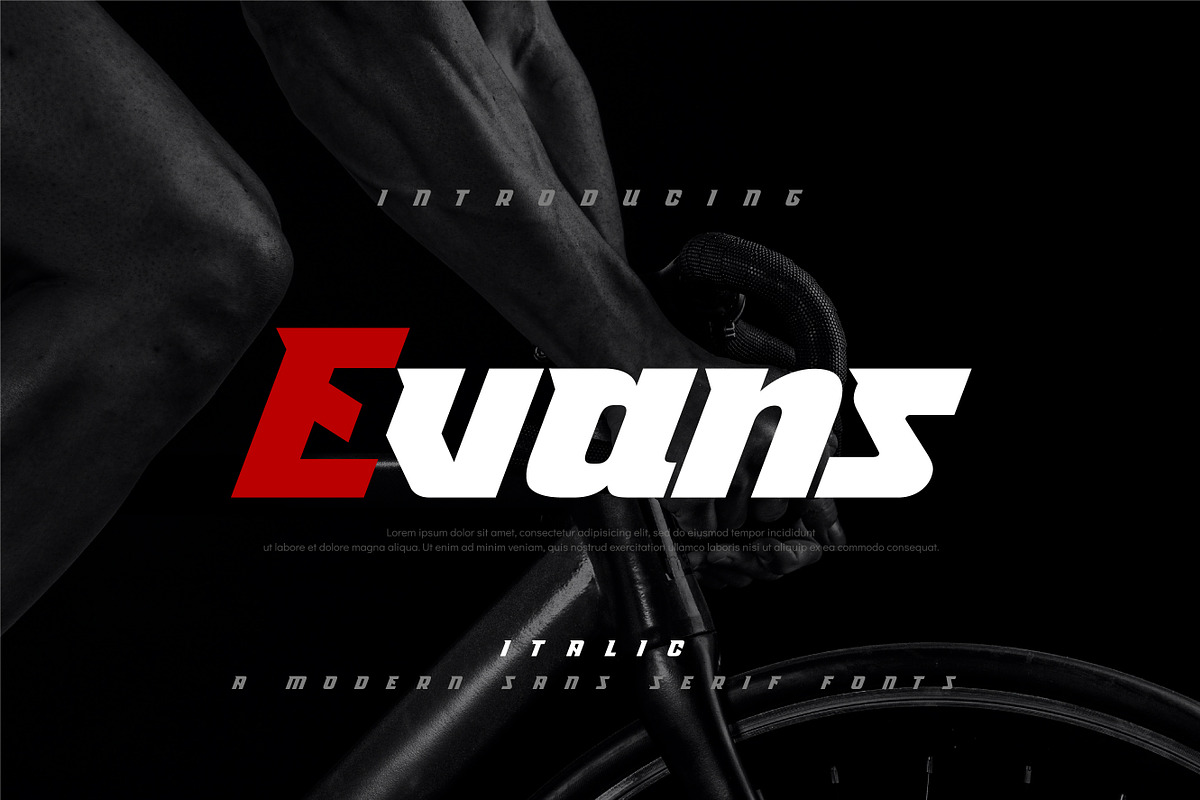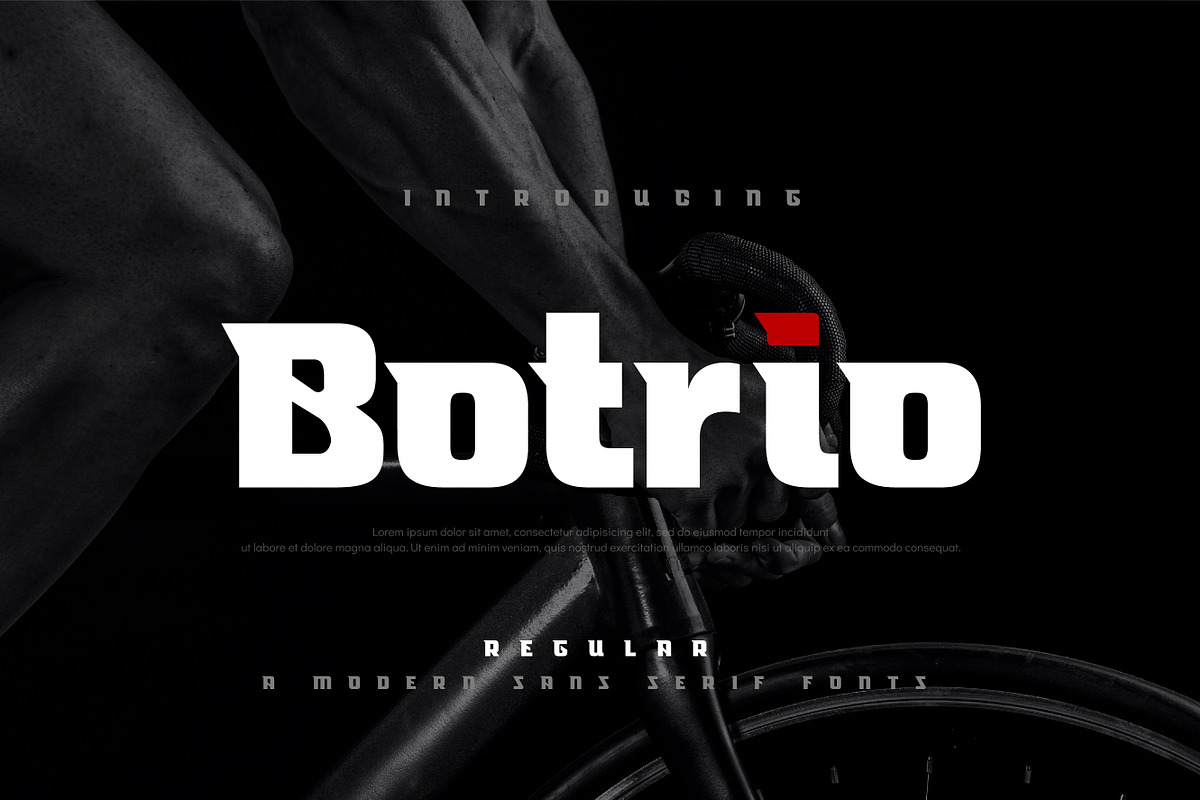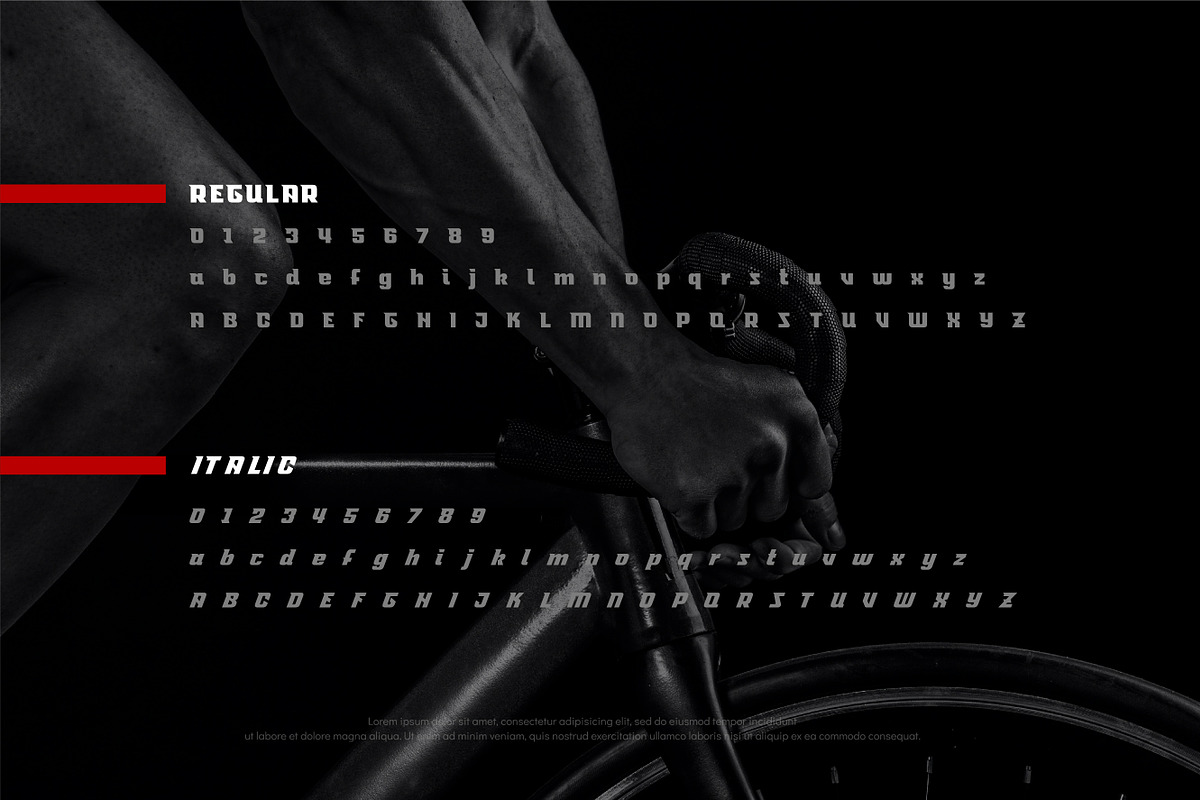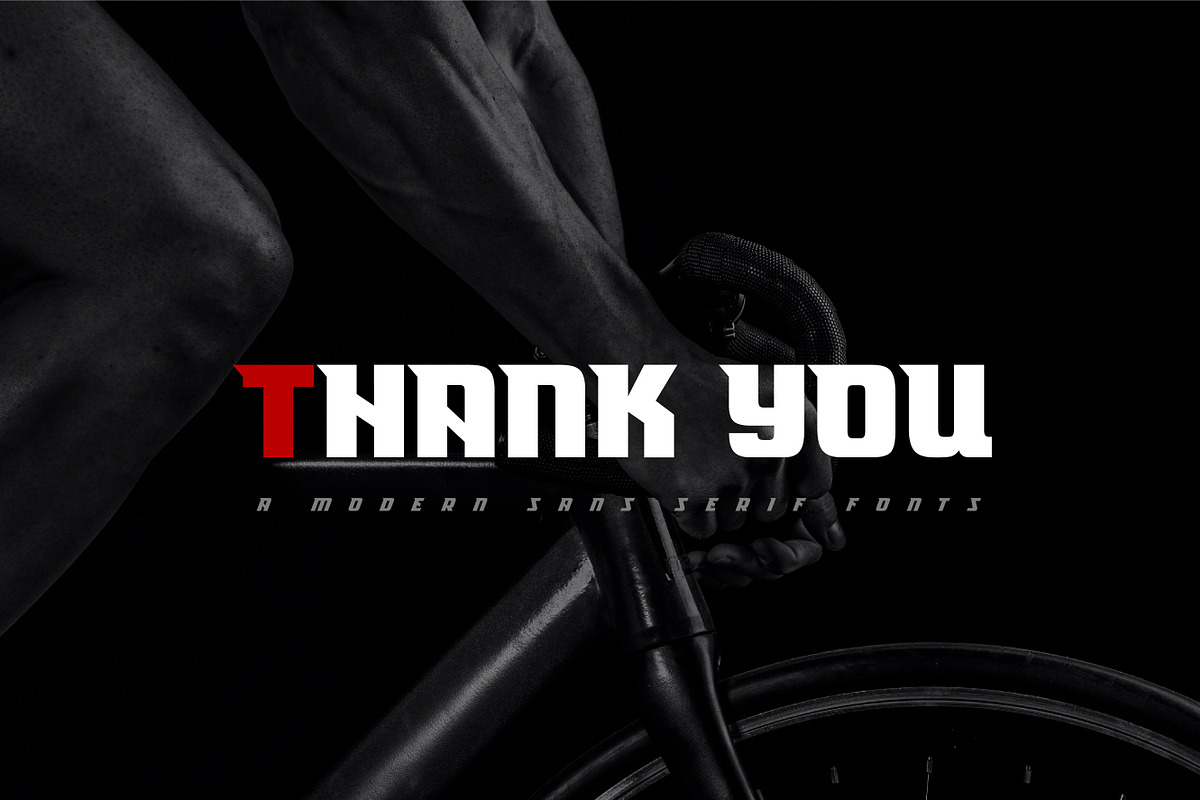
Botrio
Botrio. sport modern future bold, alphabet fonts. Typography modern design projects to the highest level, be it branding, headings, technology, digital, movie, invitations, signatures, logos, labels, and much more! . What's Included : Botrio: Regular (EPS/OTF/TTF/WOFF/WOFF2/SVG/EOT) Botrio: Italic (EPS/OTF/TTF/WOFF/WOFF2/SVG/EOT) . Hope you enjoy with our font! :)